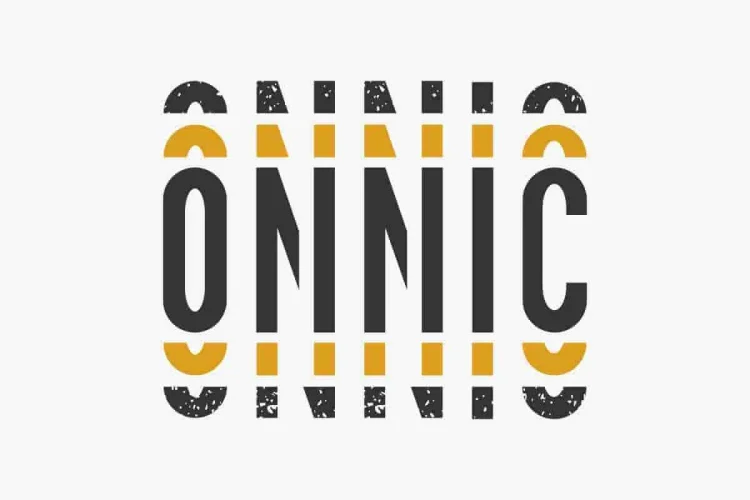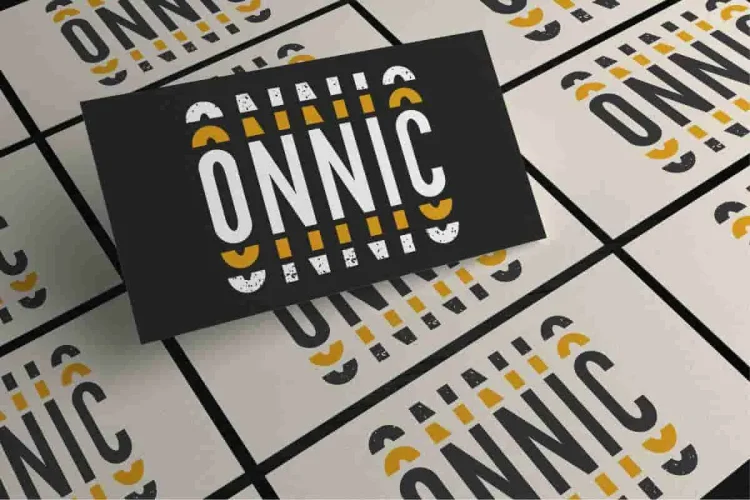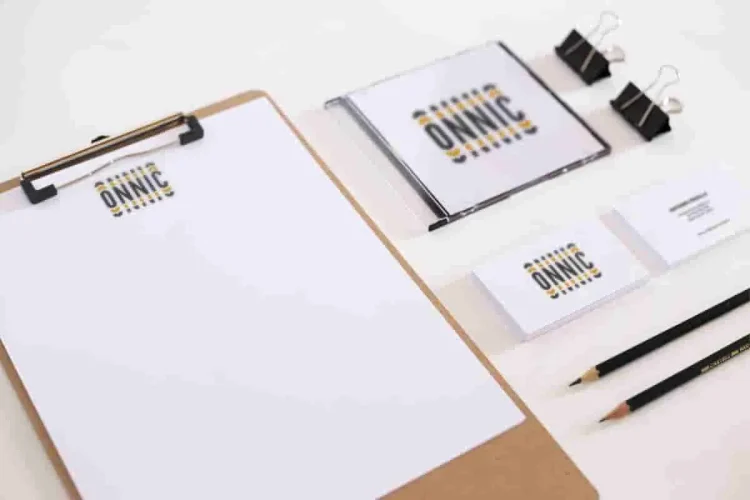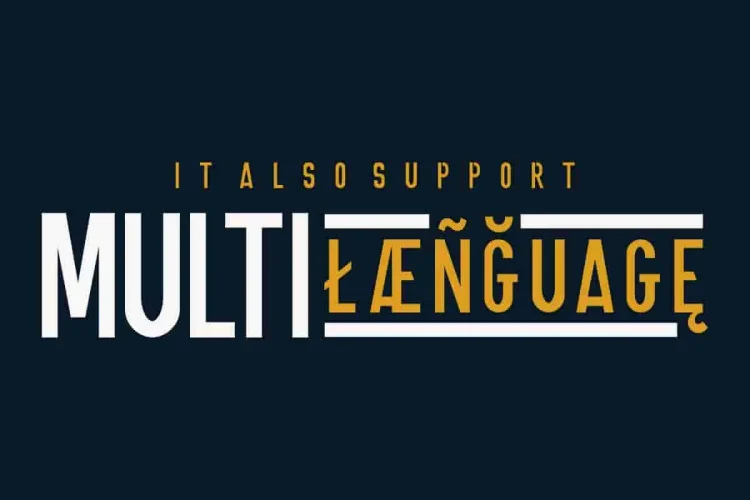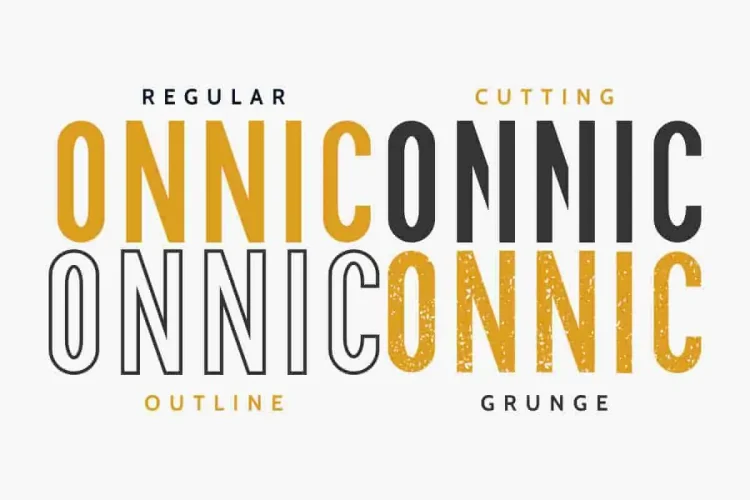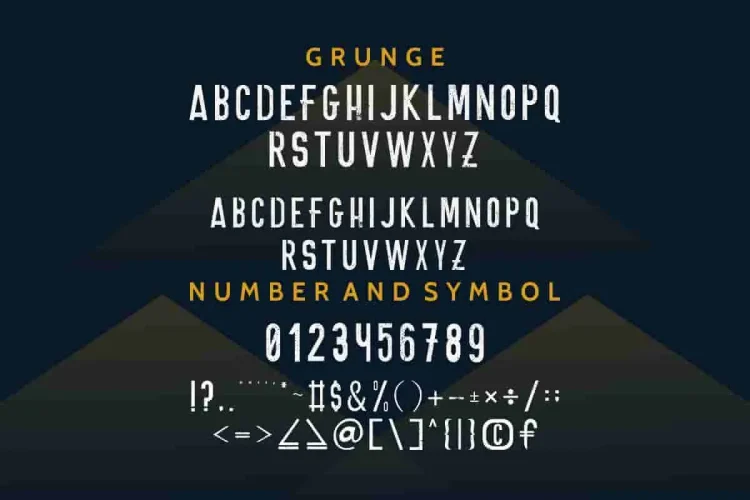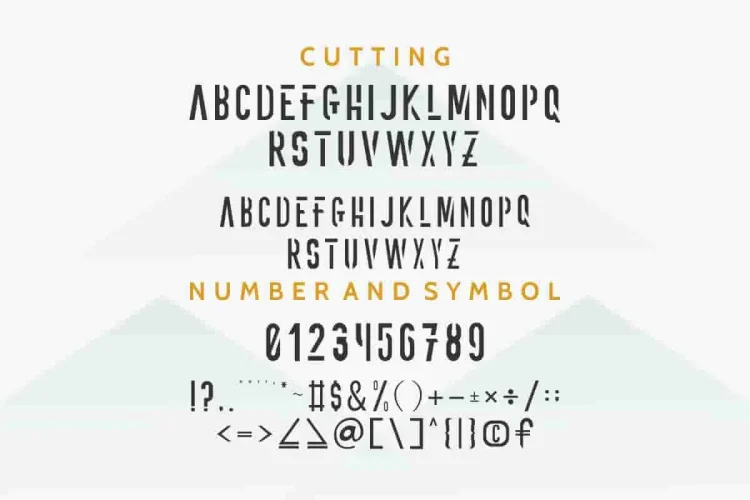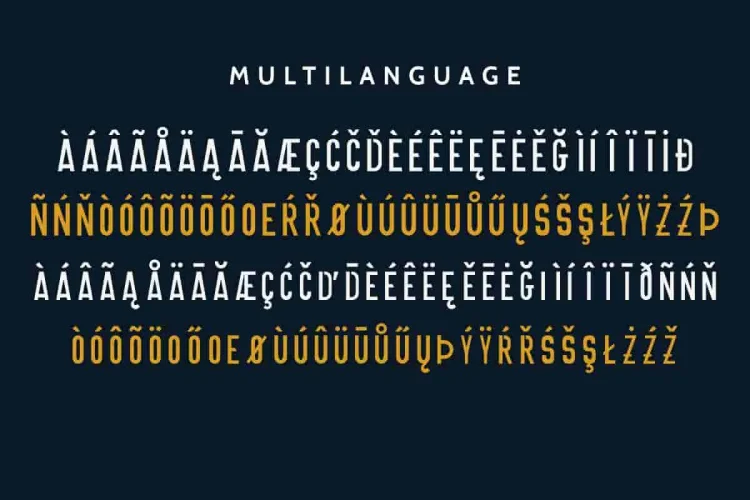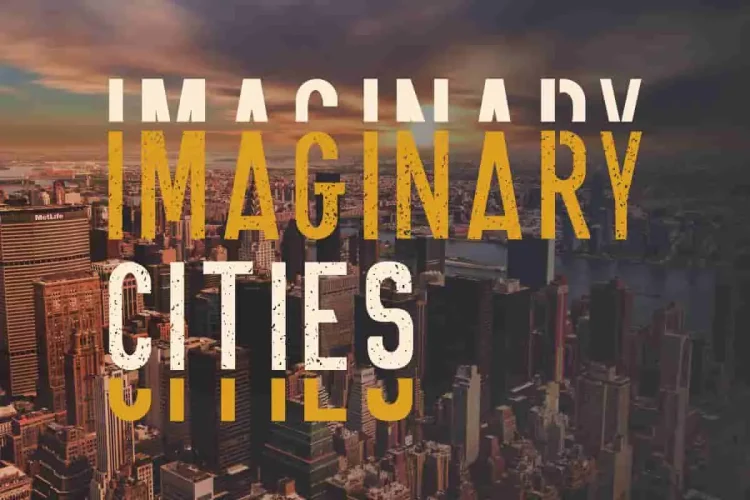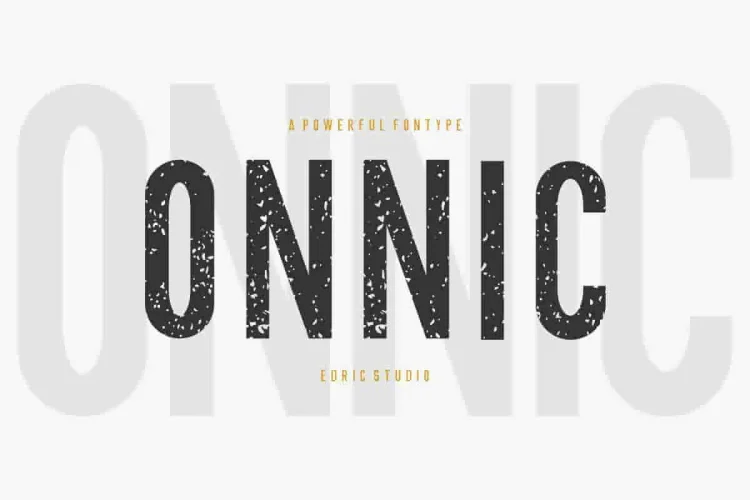
ONNIC Stencil Font with Four Style
Today, we’re excited to introduce our newest font : ONNIC ! a modern sans serif stencil font designed to bring boldness and clarity. Moreover, this package include 4 unique styles font : Standar, Cutting (monospaced), grunge and outline. In addition, it features fresh, elegant, and stylish glyphs.
🟡 What’s Inside the ONNIC Font Pack?
• Regular Style
First of all, the Regular Style is Clean, bold, and professional.
• Cutting Style (Monospaced)
Next, the Cutting Style features sharp, sliced glyphs for a futuristic look.
• Outline Style
Then, the Outline Style appears minimal and stylish.
• Grunge Style
Finally, the Grunge Style is textured, rough, and bold.
As a result, it works perfectly for branding, logo type, stationery, business card, signage, flyer, brochure etc. Moreover, there are many industries that is suitable for this font : startup, technology, agency, marketing, game, studio or any hip modern companies
Whether you’re designing packaging, crafting bold headers, or creating standout logos, ONNIC gives you the power to stand out. Thanks to its four adaptable styles, you’ll enjoy unmatched creative freedom for every visual project.